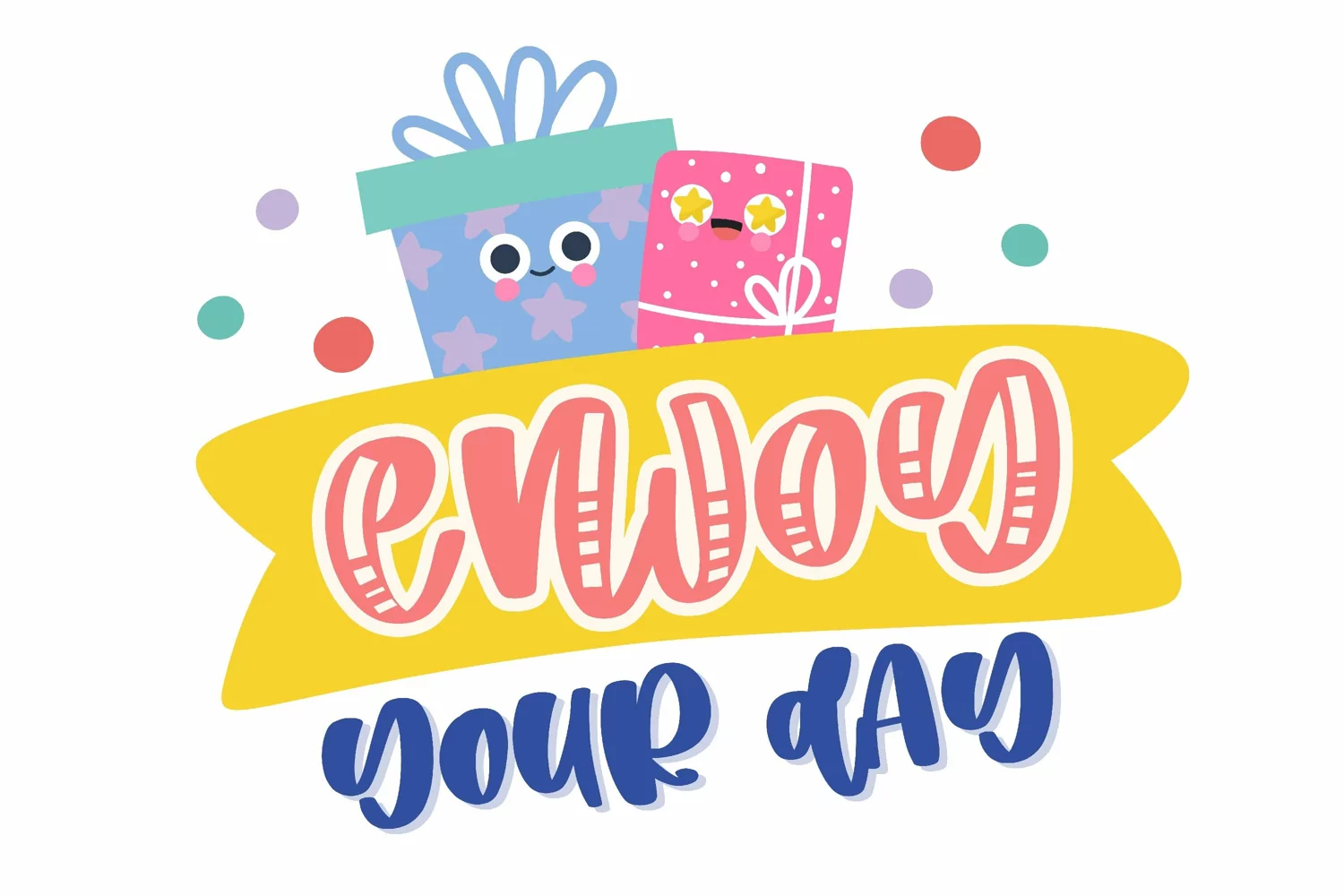
Bubbly Letter - A Cute Preppy Bubble Font
Birth Day is a sweet and cute handwritten font. Fall in love with its incredibly versatile style and use it to create gorgeous wedding invitations, beautiful stationary art, eye-catching social media posts, and much more!
Birht Day